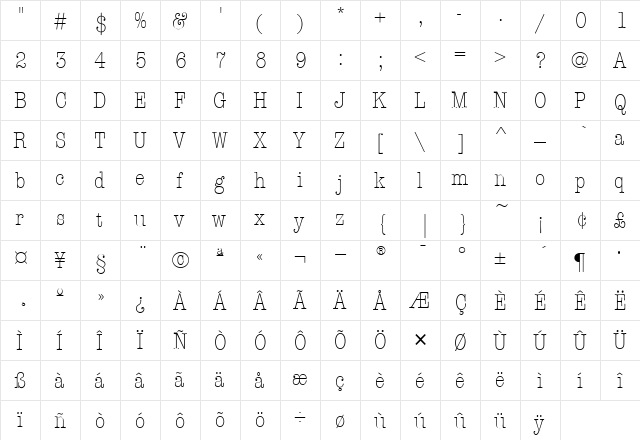
AmTypewriterCdITC Regular
| Foundry | E+F Designstudios. ITC American Typewriter is a registered trademark of International Typeface Corporation |
AmTypewriterCdITC brings the precise, column-aligned rhythm of monospaced typography to designs that value technical clarity and systematic order.